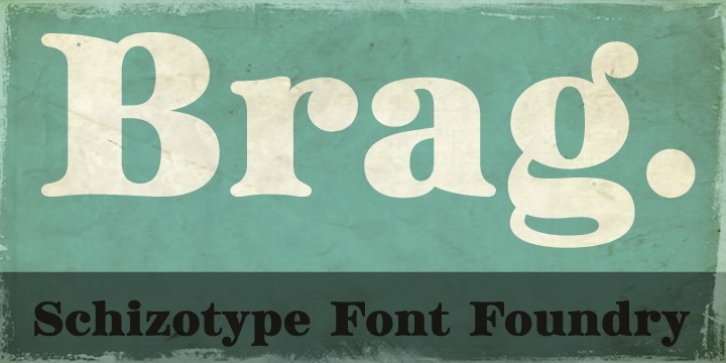
Publisher: Schizotype
Brag is a bold as brass display serif with a slight Tuscan flavor. Ideal for headlines, logos and posters, or as an alternative to staples like Cooper Black.
OpenType features: ligatures and stylistic alternates. Ligatures are included for the usual suspects like ff, fi, fl etc. but there are also some f i diacritic ligatures, and the rarely used gj combination. Stylistic alternates are also grouped into stylistic sets. These provide:
SS01 - alternate forms for M and N SS02 - a more exuberant 2 and ampersand, and # changes to a fancy Numero symbol SS03 - r, p, n and m echo the serif style of uppercase B, D, R etc. SS04 - a more regular closed Q and spurless U